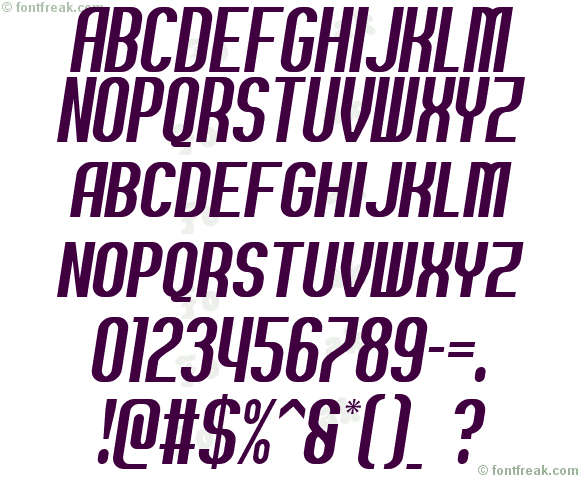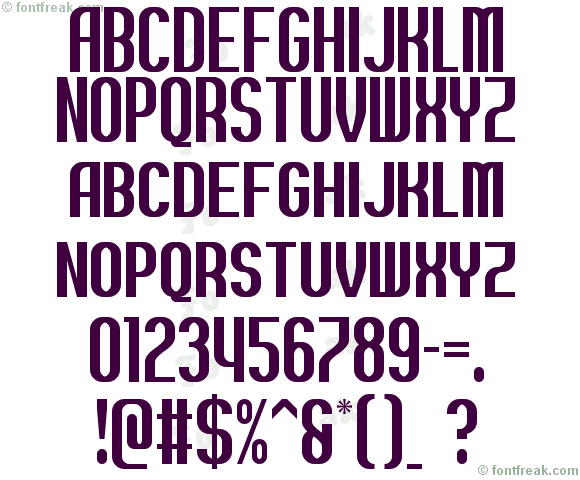
Balhattan Italic
Balhattan
Balhattan Italic is a striking sans-serif typeface designed by GGBot, characterized by its modern and dynamic aesthetic. This font stands out with a unique blend of elongated letterforms and a bold presence, making it perfect for various design applications. The stroke weight is consistent, providing a sense of stability, while the italic slant adds a touch of elegance and fluidity. The overall contrast is moderate, ensuring readability across different sizes. The spacing is well-balanced, allowing for clarity in both headlines and body text.
Ideal for a myriad of creative projects, Balhattan Italic shines in areas such as branding, where it can enhance logos and business cards, giving a contemporary look that appeals to modern audiences. It’s also effective in promotional materials, like flyers and posters, where its boldness can capture attention. Additionally, this font is a great choice for website headers and social media graphics, helping content creators deliver impactful messages. Small business owners will find it particularly useful for signage and advertising, where a memorable impression is essential.
Targeted towards graphic designers, content creators, and small business owners, Balhattan Italic offers versatility and style. Its contemporary design resonates with audiences looking for a fresh and innovative appearance, making it a valuable addition to any designer's toolkit.
The Balhattan Italic font free download is an opportunity to elevate your projects with a typeface that combines modern aesthetics with functionality. Whether you're crafting a wedding invitation or designing a restaurant menu, this font's distinctive character will enhance your work and leave a lasting impression. Its ability to adapt to various contexts while maintaining a strong visual identity truly sets Balhattan Italic apart from other typefaces.